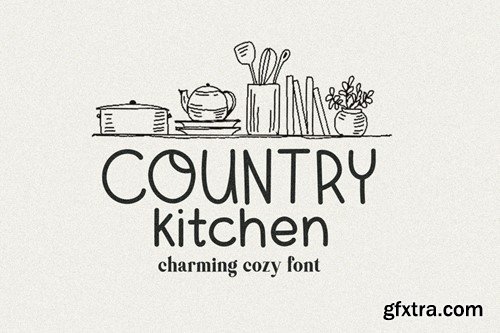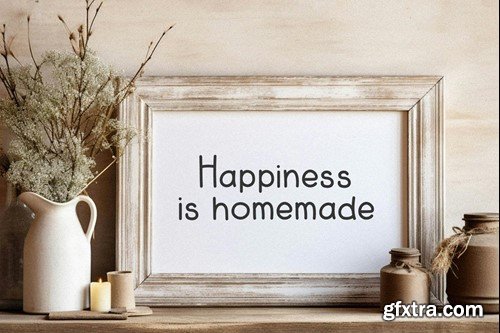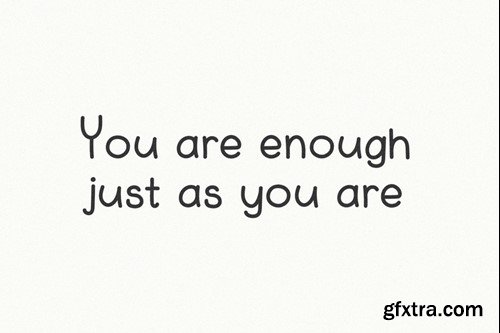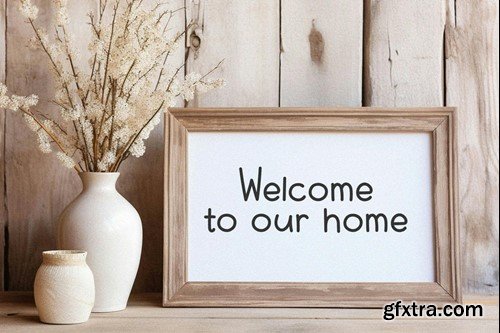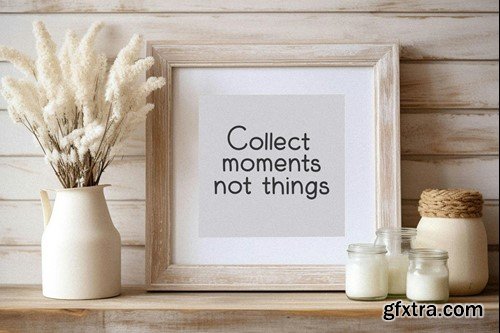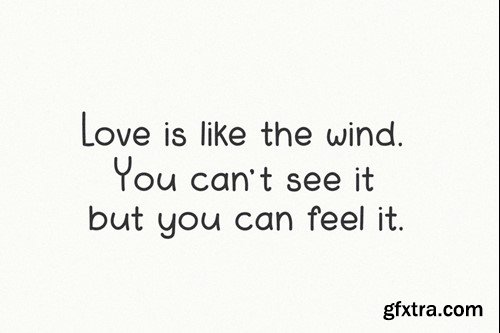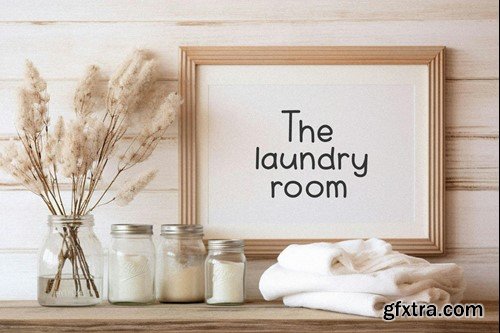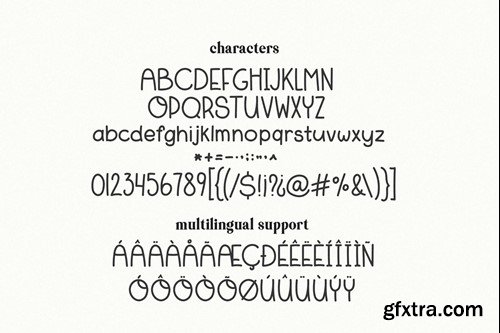
Country Kitchen Farmhouse Font R3STK28
Country Kitchen Farmhouse Font
Country Kitchen - a charming farmhouse handwritten font. Perfect to create stickers, quotes, prints, cricut projects, sublimation designs and svg files.